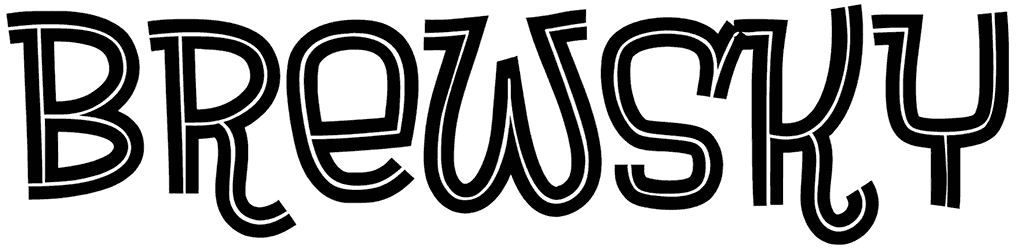
Brewsky Font
Brewsky is a timeless double-line font that can be seen for miles and can find its way into the hearts of viewers. This outline font is perfect for any level, such as music promotion, movie titles, and YouTube tutorial covers.
Stylizing this font is very simple and can make a deep impact on viewers. For this reason, even without having lowercase letters, it adapts to any style and will have a special place in your library.
Designed by: Tup Wanders